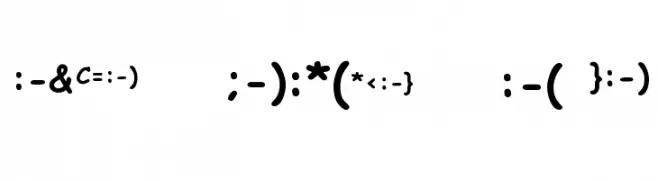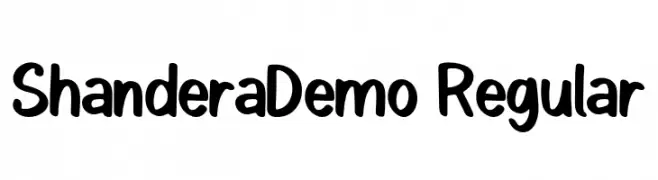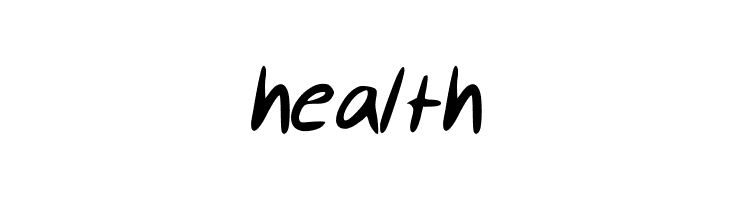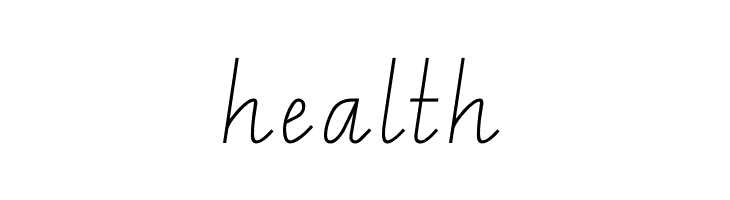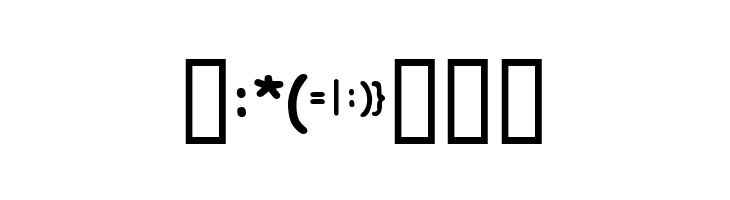
A playful handwritten font with irregular strokes and a casual, organic flow.
A modern, italicized font with medium contrast and normal spacing.
A chaotic and expressive handwritten font with irregular strokes.
A playful set of expressive emoji-like faces with bold outlines.
A playful, handwritten font with dynamic strokes and a casual, creative flair.
A playful, handwritten font with bold, irregular strokes.
A modern, clean font with balanced proportions and subtle elegance.
A classic serif font with elegant strokes and balanced contrast, suitable for diverse applications.
A playful, informal handwritten font with bold, dynamic strokes.
A playful, handwritten font with dynamic strokes and an informal style.
A clean and elegant font with a modern twist, featuring well-defined characters and slight contrast.
A modern serif font with clean lines and balanced proportions.
A decorative emoticon font featuring expressive faces.
A casual, expressive handwritten font with fluid, connected strokes.
A playful, casual handwritten font with smooth curves and rounded edges.
A playful, handwritten font with thin, pen-like strokes and a casual style.
A playful, rounded, handwritten-style font with even spacing.
A bold, playful handwritten font with dynamic strokes and a casual style.
A playful and whimsical handwritten font with fluid and dynamic letterforms.